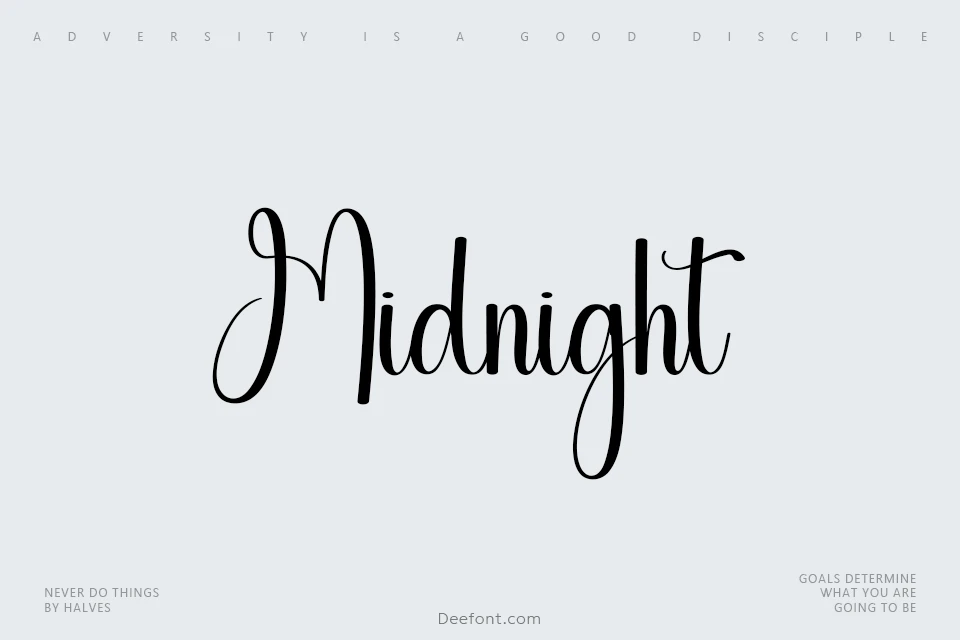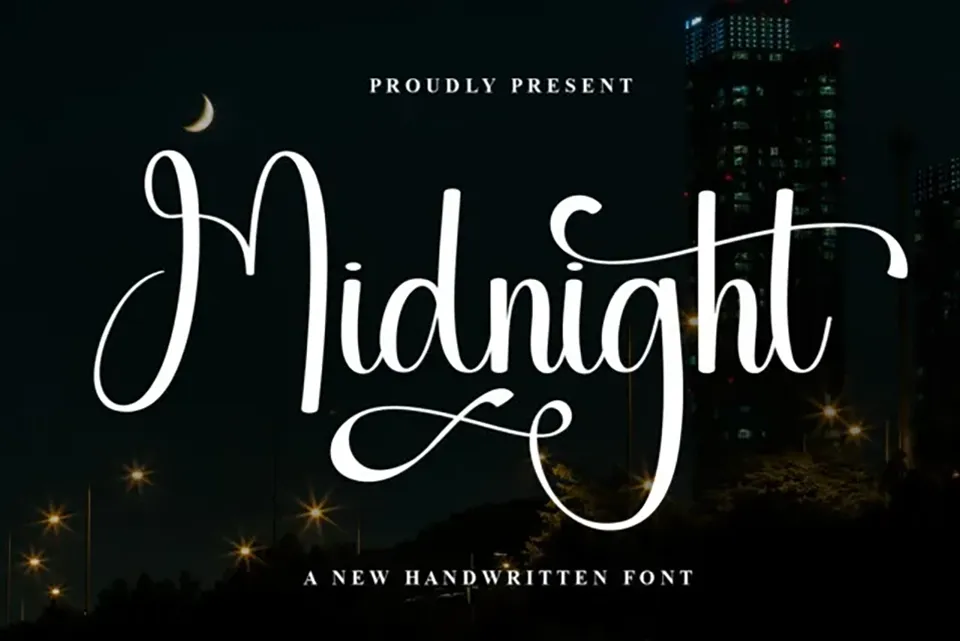
Midnight Calligraphy Font
Midnight Calligraphy Font is a beautiful, modern handwritten script font with a unique calligraphic flair. Its elegant swashes and natural flow make it perfect for logos, branding, wedding invitations, business cards, greeting cards, posters, magazines, social media graphics, and more. This font brings a luxury spark and a personal touch to any design project, making your creative work stand out with sophistication and charm.